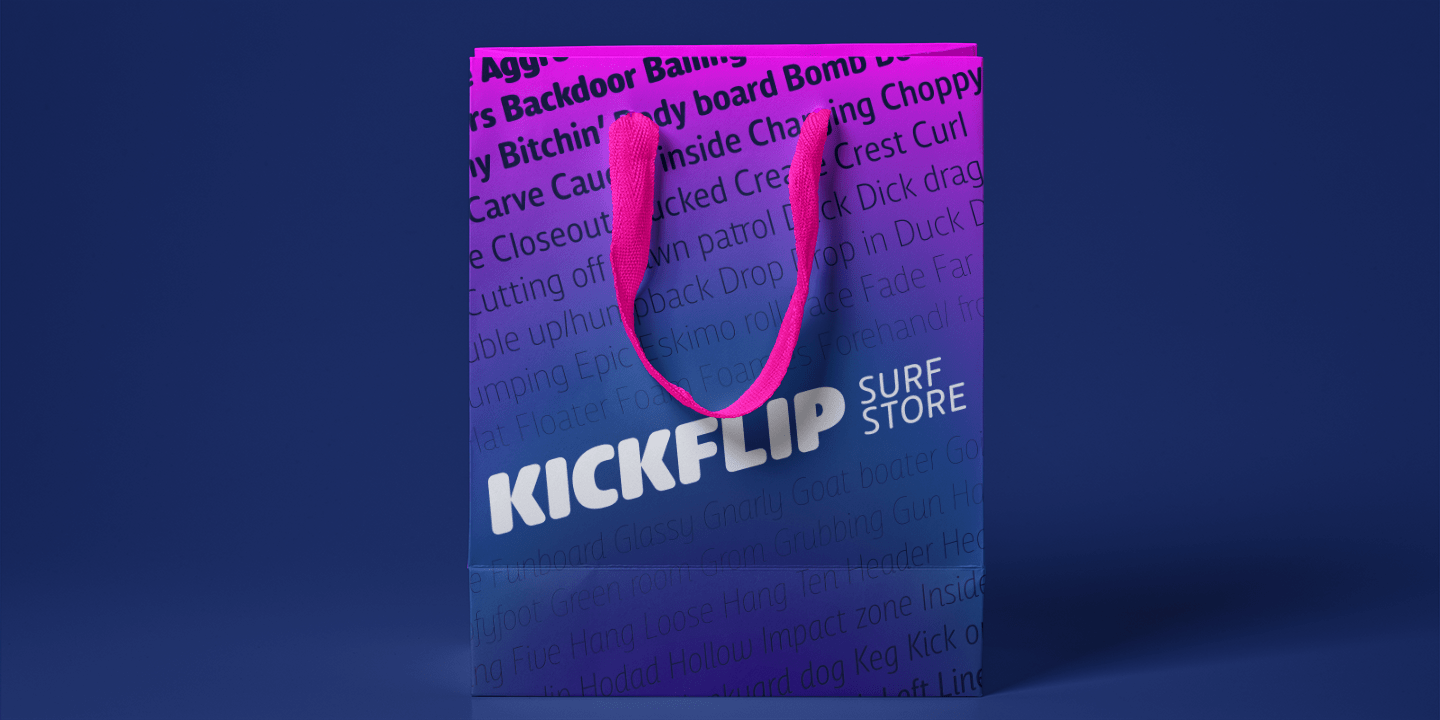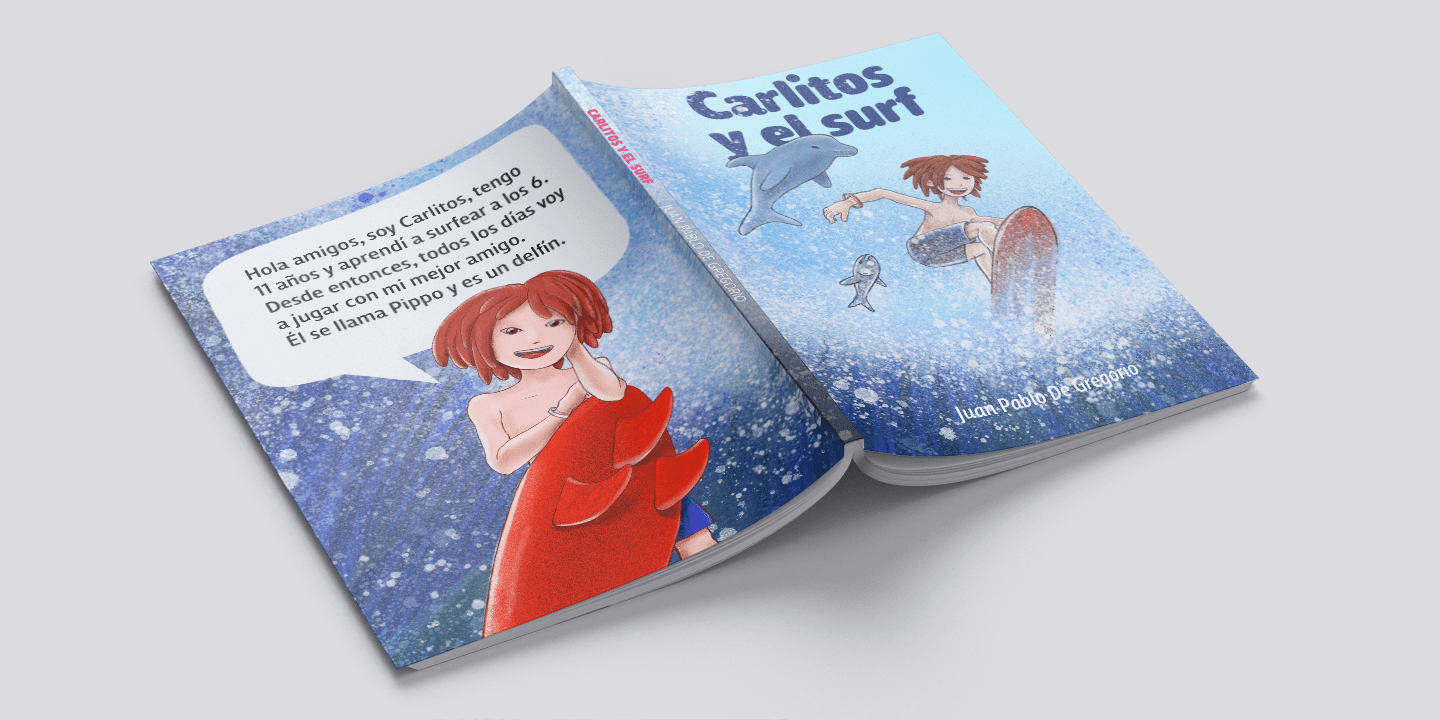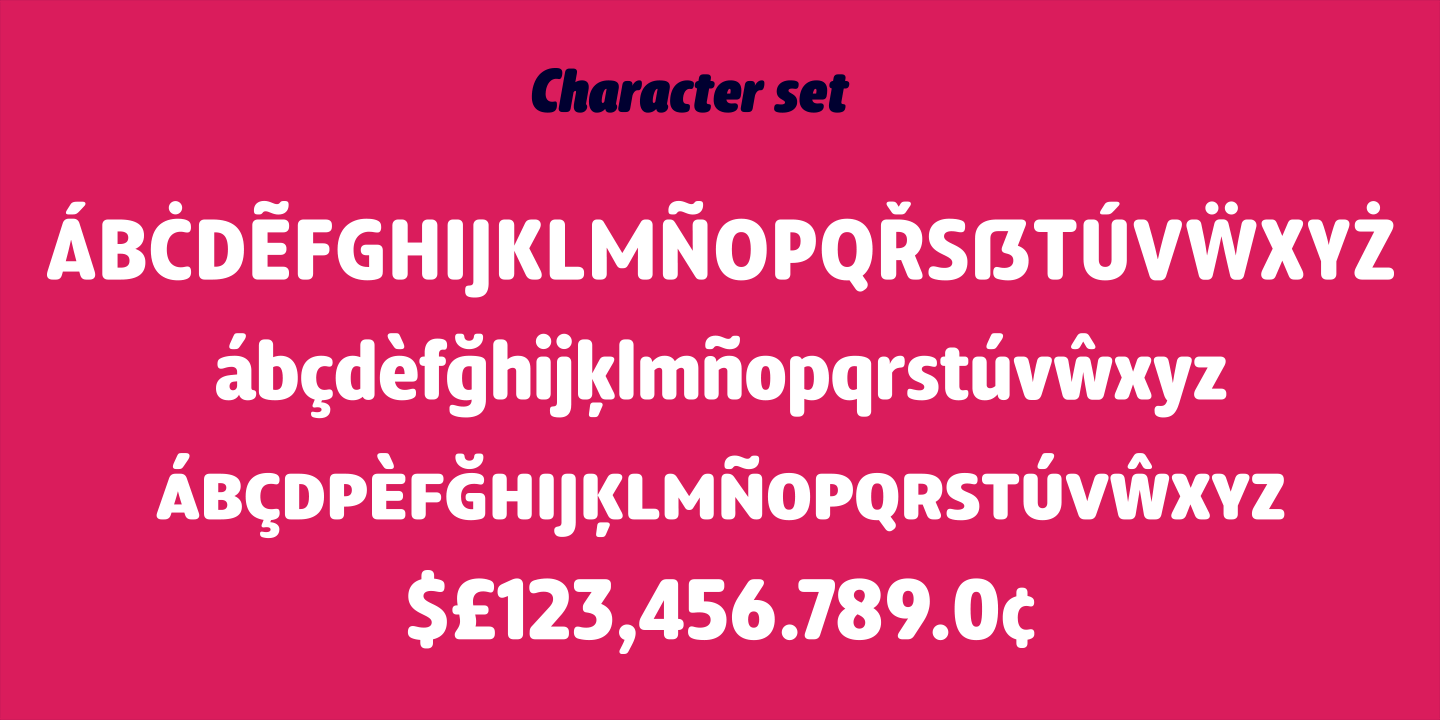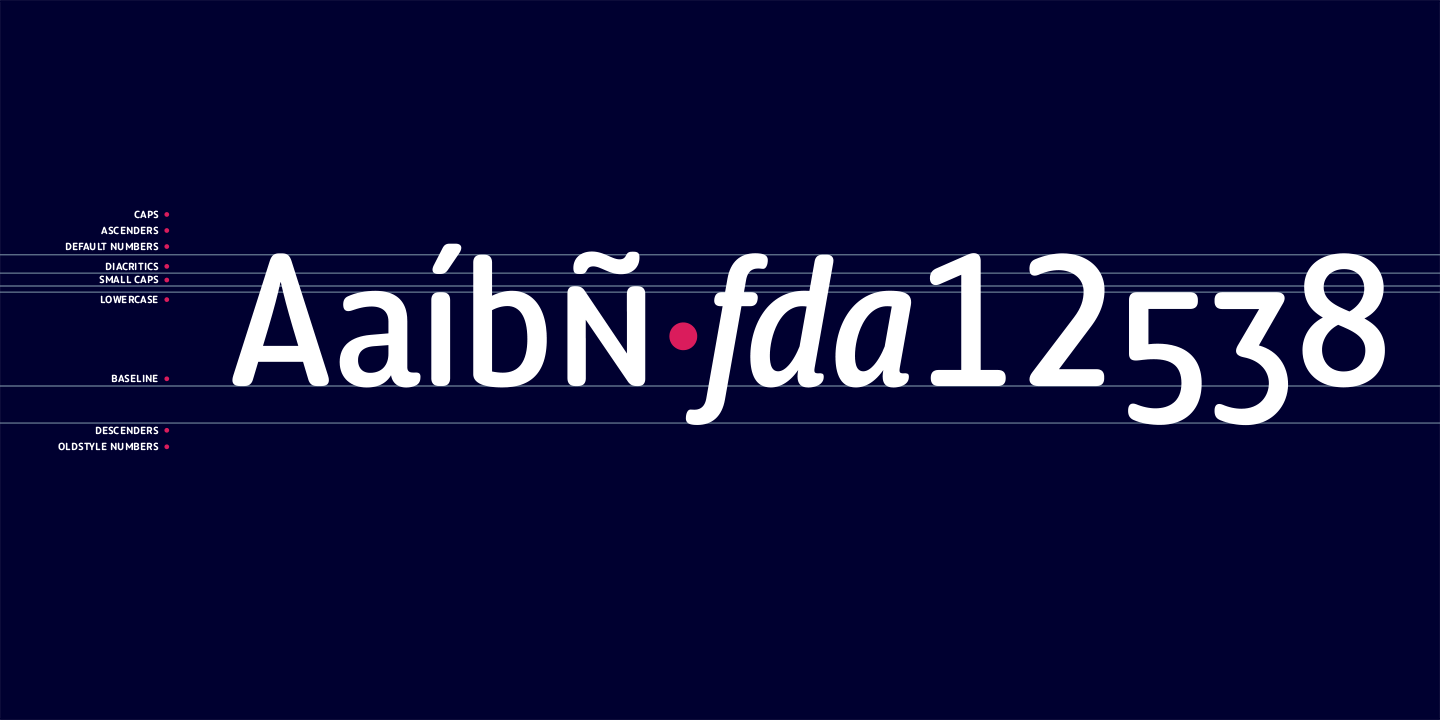
Duddy is a “friendly” sans-serif typography designed by Eleonora Lana and the Letritas team. The shape of Duddy was created based on sketches that looked after carrying the concept of kindness as far as possible, keeping always in mind…